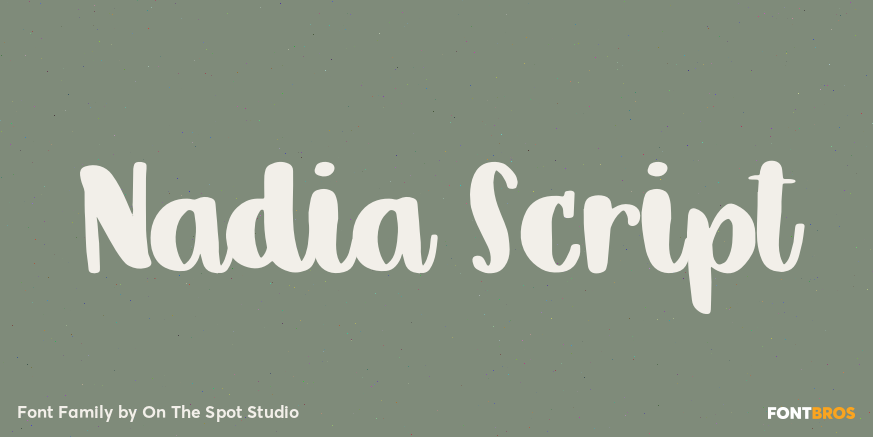
HomeFont BrosScripts: CasualNadia Script Scripts: Casual Nadia Script FacebookXPinterestWhatsApp 1 of 1 About Nadia Script Nadia is a fun hand brushed script font great for crafting, branding, and so much more!  DOWNLOAD NOW People also explored Hampshire Font Everly Rain Font Younglife Font My Sunshine Font Jessica Font Shirley Holland Sancory Font Summer Flower Font Sweet Planner Font 293 0 TagsNadia Script Font Previous articleApocrypha ProNext articlePsalter Gotisch LEAVE A REPLY Cancel reply Comment: Please enter your comment! Name:* Please enter your name here Email:* You have entered an incorrect email address! Please enter your email address here Website: Save my name, email, and website in this browser for the next time I comment. Personal Use Free Unlock Endless Creativity with the FREE September Clipart Huge Bundle (Valued at $700!) Personal Use Free Read more about this font Rothwell Personal Use Free Read more about this font Forturn Personal Use Free Read more about this font Dear Monita Personal Use Free Read more about this font BLOG Best Fonts for YouTube Videos: Make Your Thumbnails Stand Out Best Fonts for YouTube Videos: Make Your Thumbnails Stand Out Choosing the right font can make a massive difference in how your YouTube videos perform.... Transform Your Website: Elevate Your Typography with 7 Best Web Font Generators 5 Fonts That Will Dominate Design Trends in 2026 Exploring Font Trends